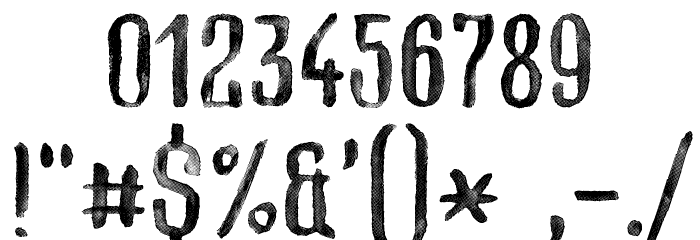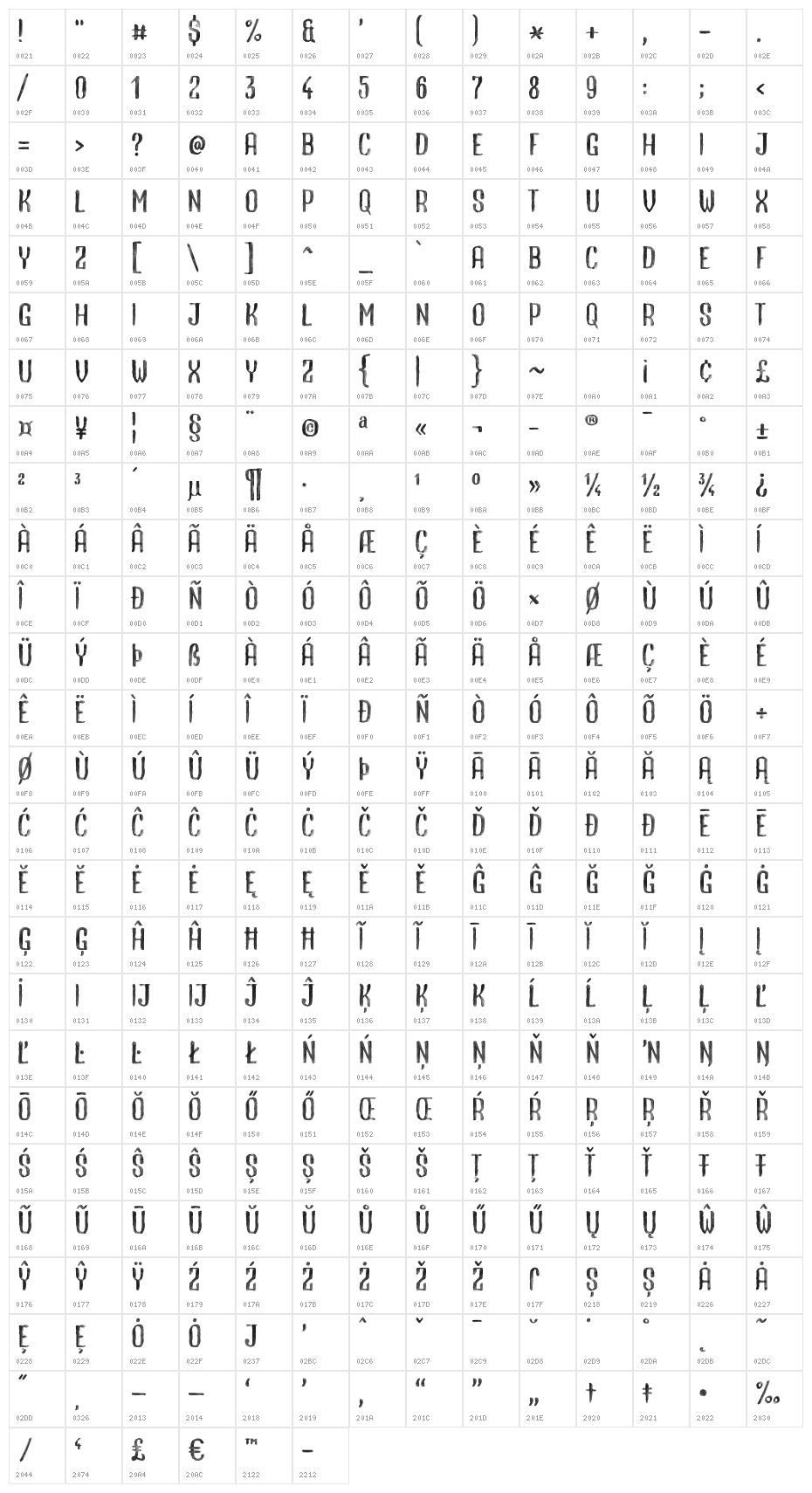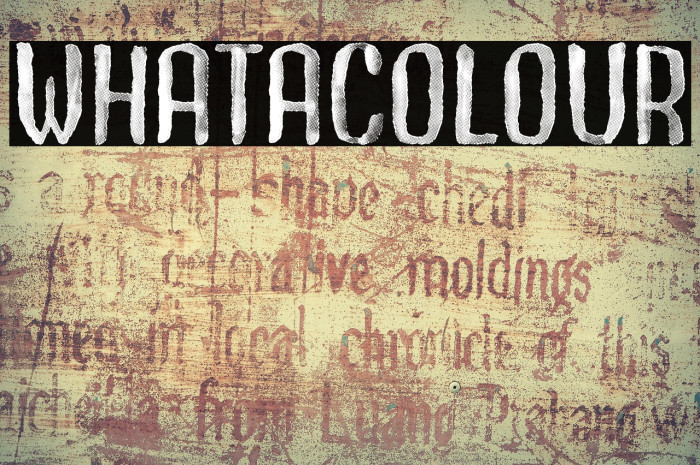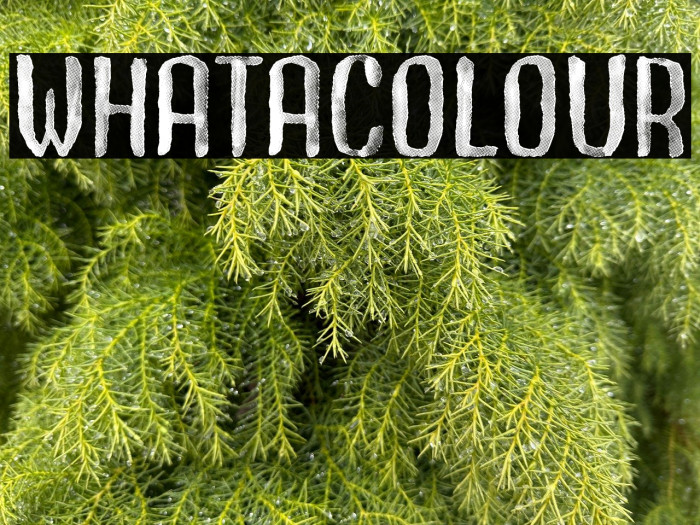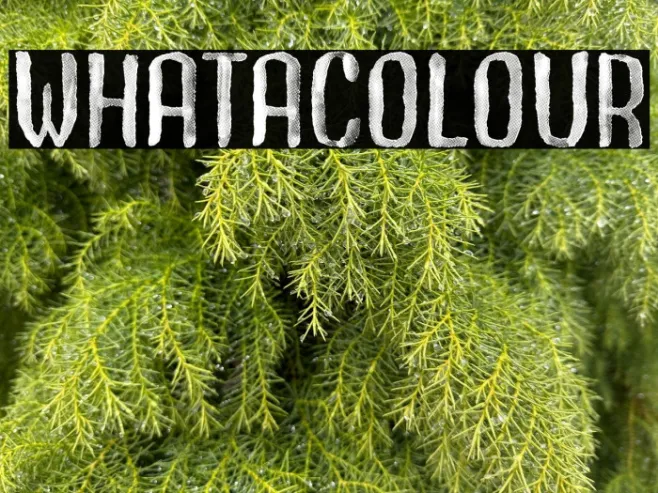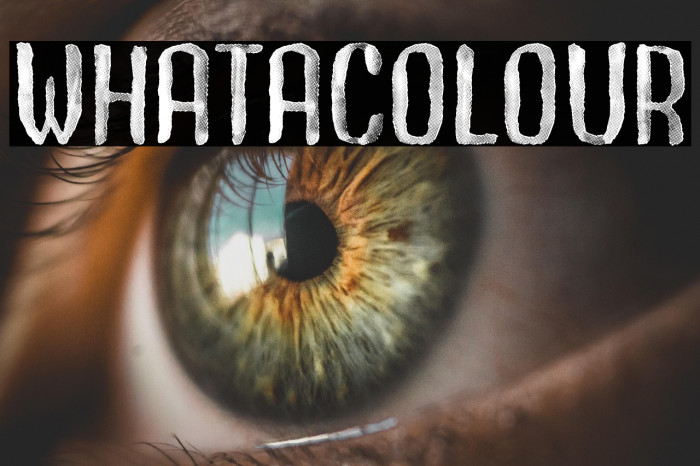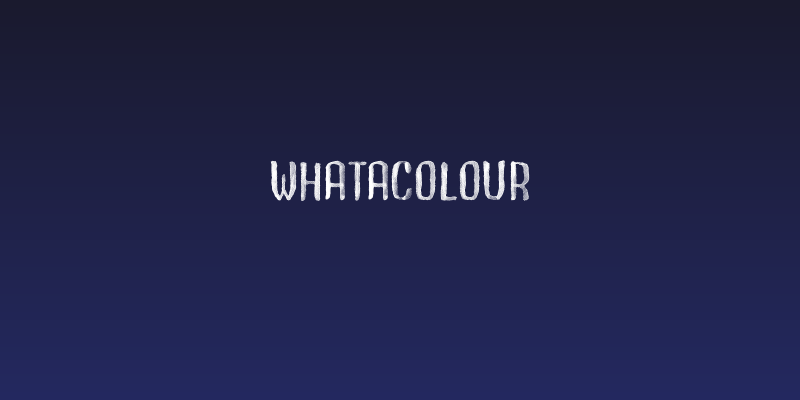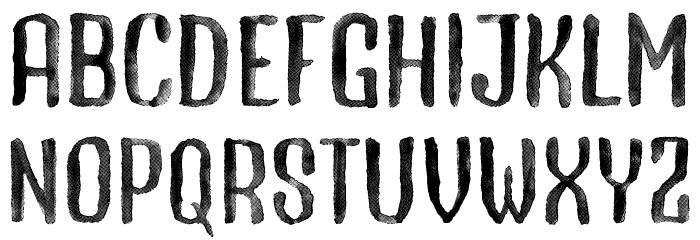
Whatacolour Font
Whatacolour Description
This font features a bold, brush-like texture that gives it a hand-painted appearance. The characters are uppercase and maintain a consistent height, with slightly irregular edges that add to its artistic flair. The strokes are thick and exhibit a medium contrast, with some variation in width that enhances the dynamic feel. The font's style is expressive and eye-catching, making it suitable for creative and informal applications. It conveys a sense of energy and movement, ideal for projects that require a personal touch.
| Overall Style | Artistic, Expressive |
| Proposed Projects | Ideal for posters, artistic branding, event invitations, and creative headlines. |